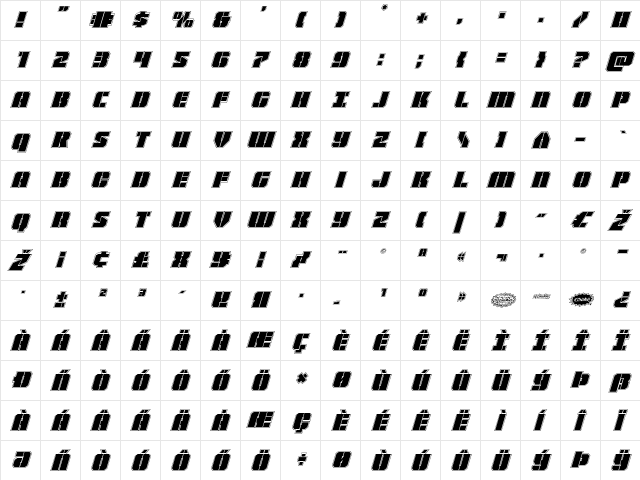
Warp Thruster Academy Italic Italic
Design Context for Warp Thruster Academy Italic Typeface
Warp Thruster Academy Italic is a composed and adaptable typeface that performs quietly and consistently across a wide range of design contexts. Its italic angle brings a sense of urgency and motion to the letterforms.
Pro Tip: Try Warp Thruster Academy Italic for annotation and caption copy alongside an upright companion — the contrast in angle creates a dynamic but ordered typographic system.